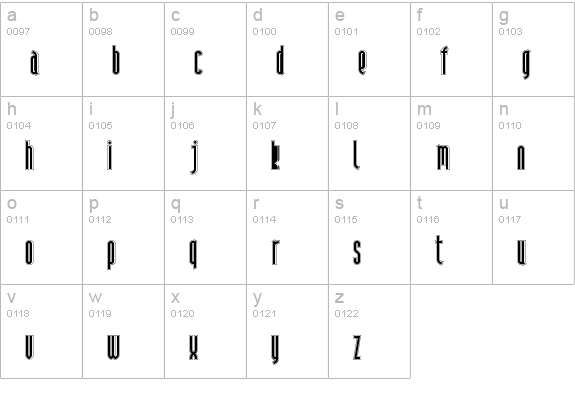
Andiron Outline NF Font Details
Andiron Outline NF is a striking and modern font that exudes elegance and sophistication. Its clean lines and sharp edges give it a contemporary and stylish look, making it perfect for a wide range of design projects. Whether you're creating a sleek logo, designing a sleek website, or crafting eye-catching marketing materials, this font is sure to make a bold statement. What sets Andiron Outline NF apart is its versatility - it can be used for both display purposes and body text, making it a truly versatile font choice. Its bold and distinct style is guaranteed to grab attention and leave a lasting impression on your audience. Best of all, Andiron Outline NF is available for free download at FontsMarket.com. So why wait? Add this stunning font to your collection today and elevate your designs to the next level!